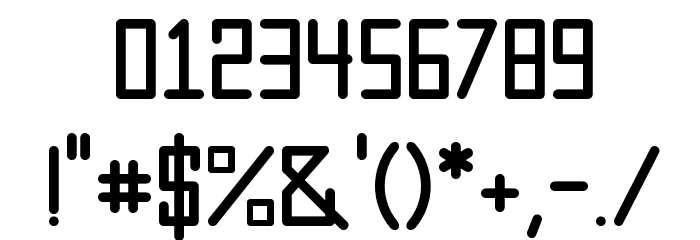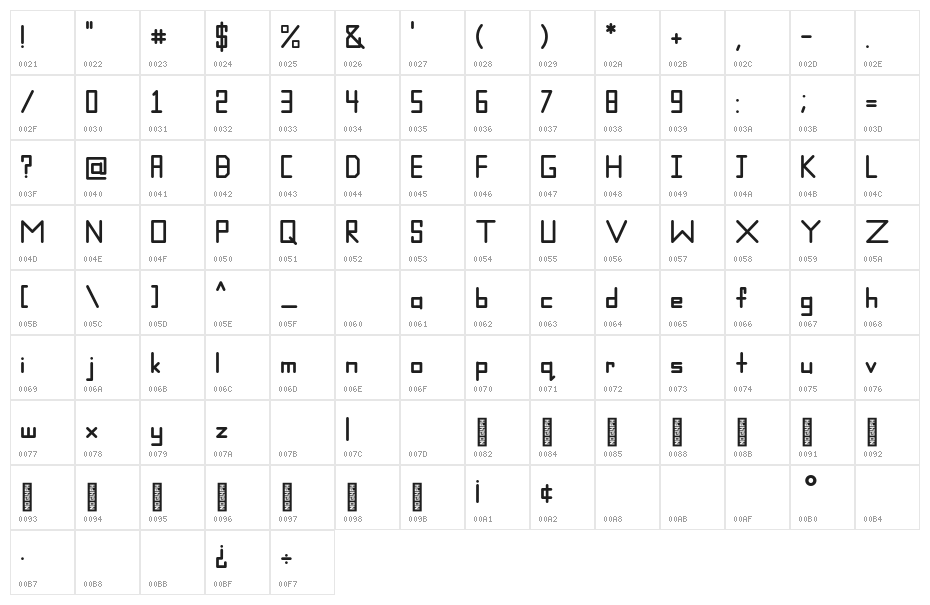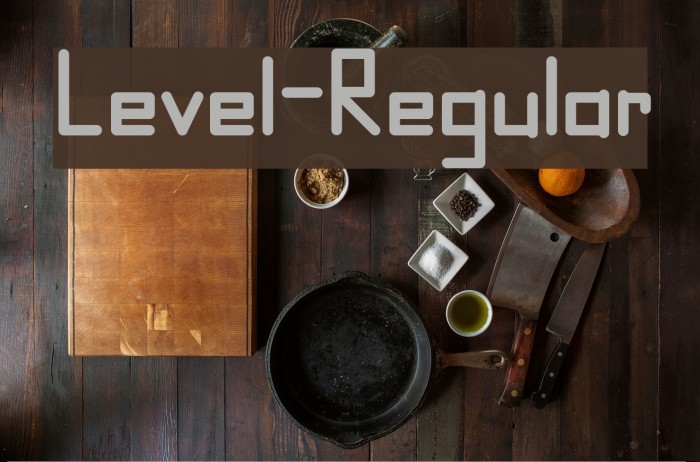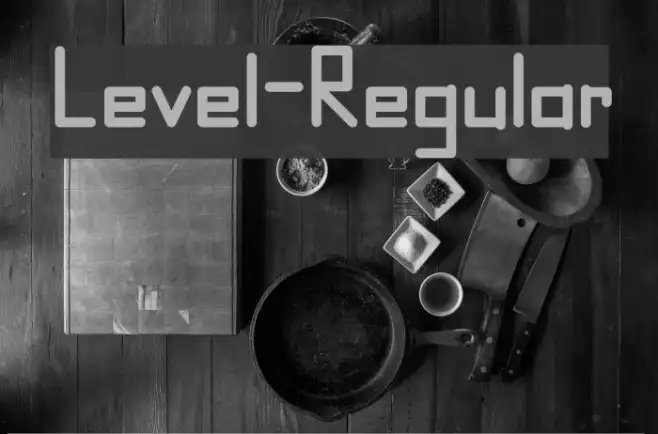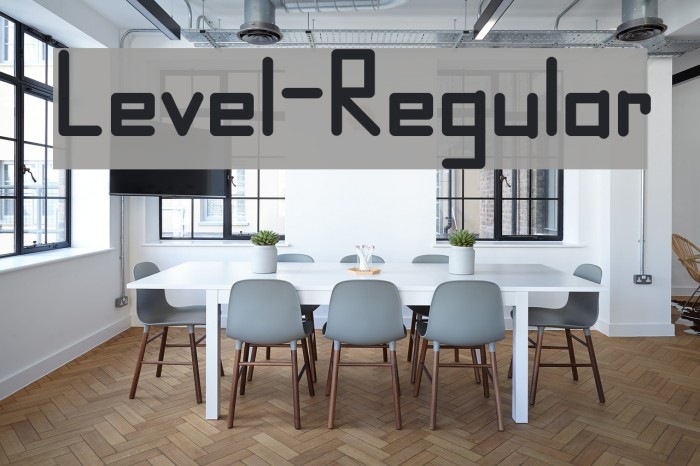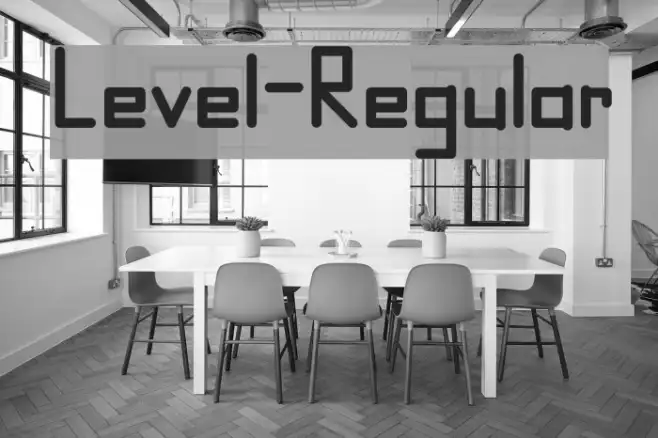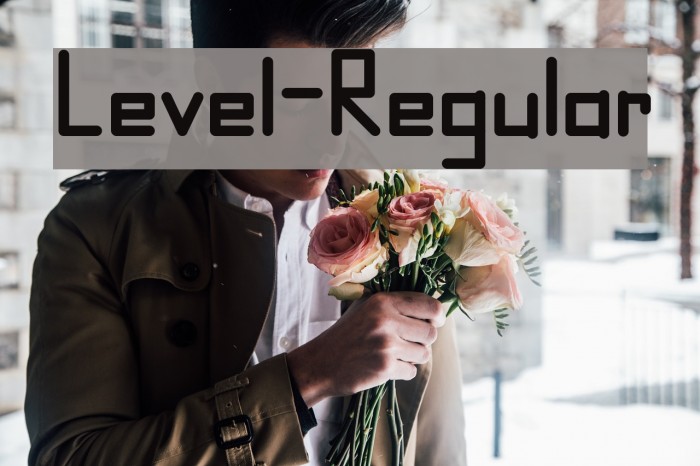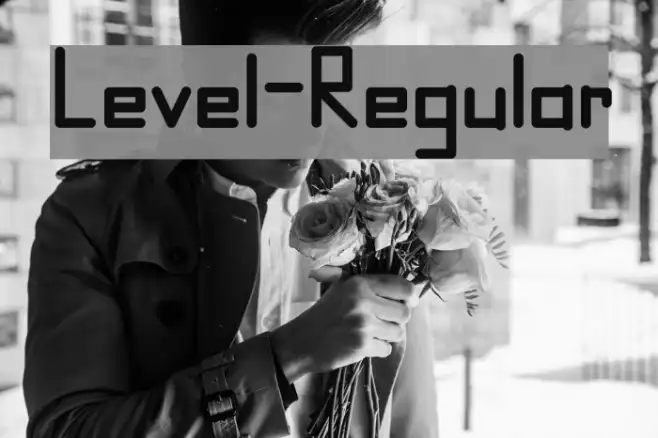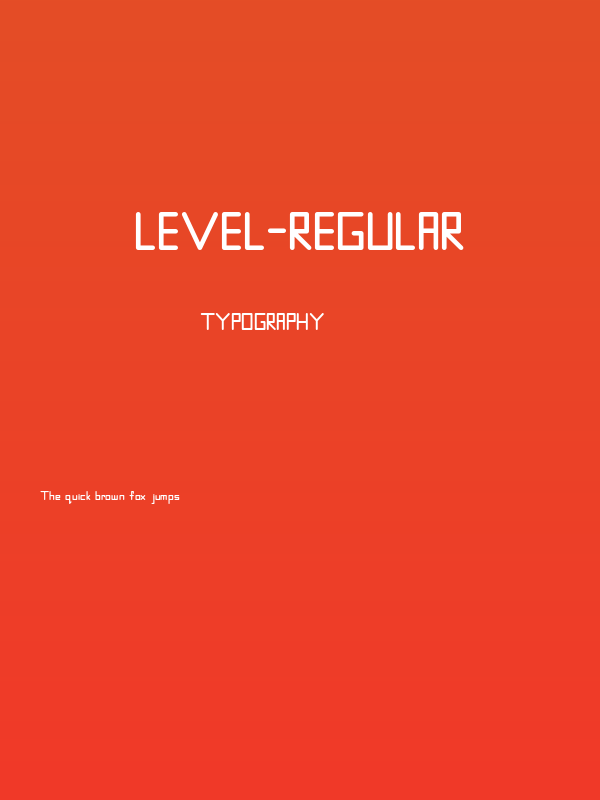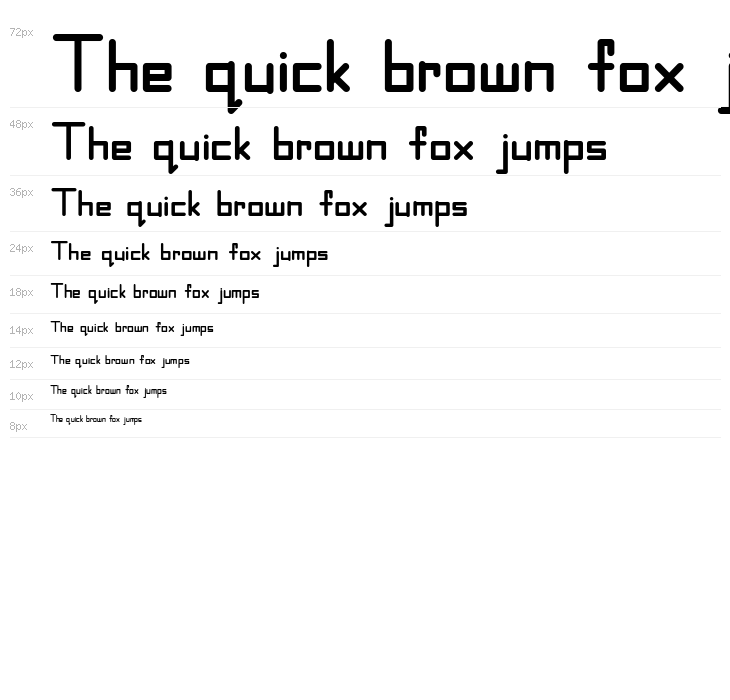
Level-Regular Font
Level-Regular Description
This font features a modern, geometric design with a clean and structured appearance. The characters are composed of straight lines and rounded corners, giving it a futuristic and technical feel. The uniformity in stroke width across all characters contributes to a cohesive and balanced look. The uppercase and lowercase letters maintain a consistent height, which enhances readability. The numerals and special characters are designed with the same geometric precision, making them easily distinguishable. This font is versatile and can be used in various design projects that require a contemporary and sleek aesthetic.
| Proposed Projects | Ideal for tech branding, digital interfaces, signage, and modern advertising. |